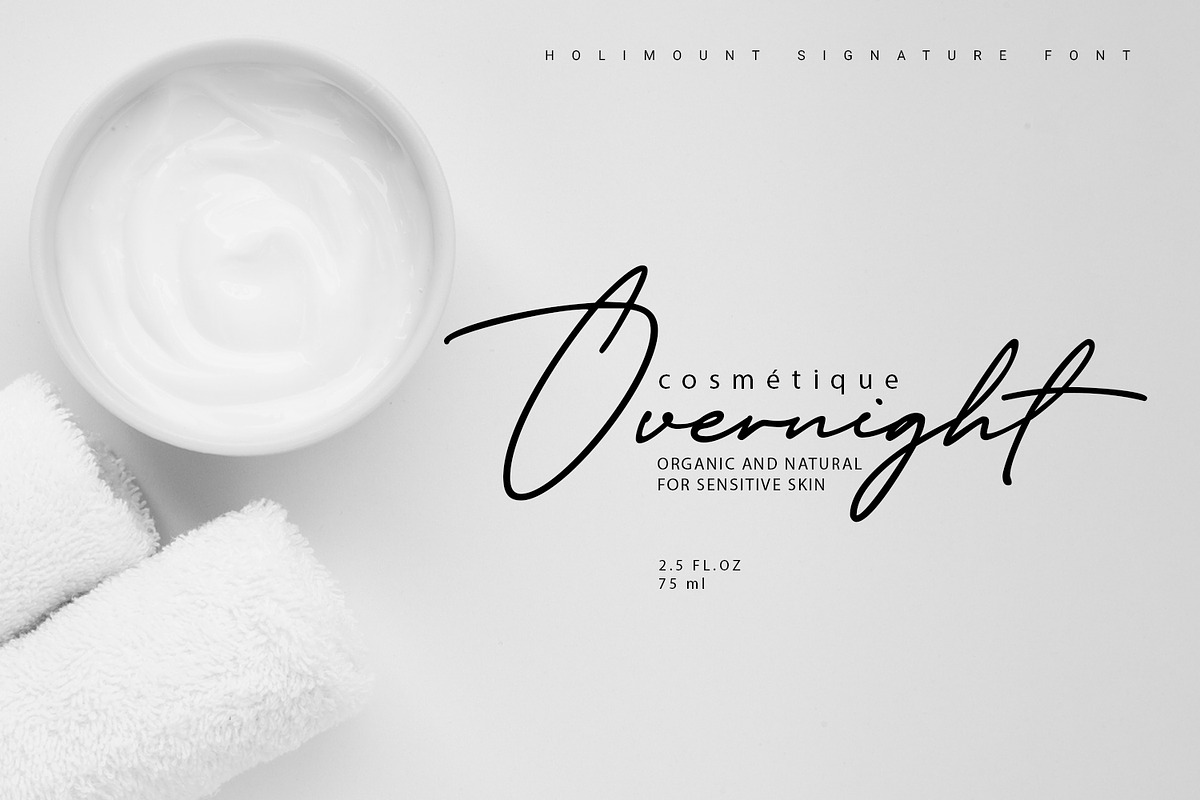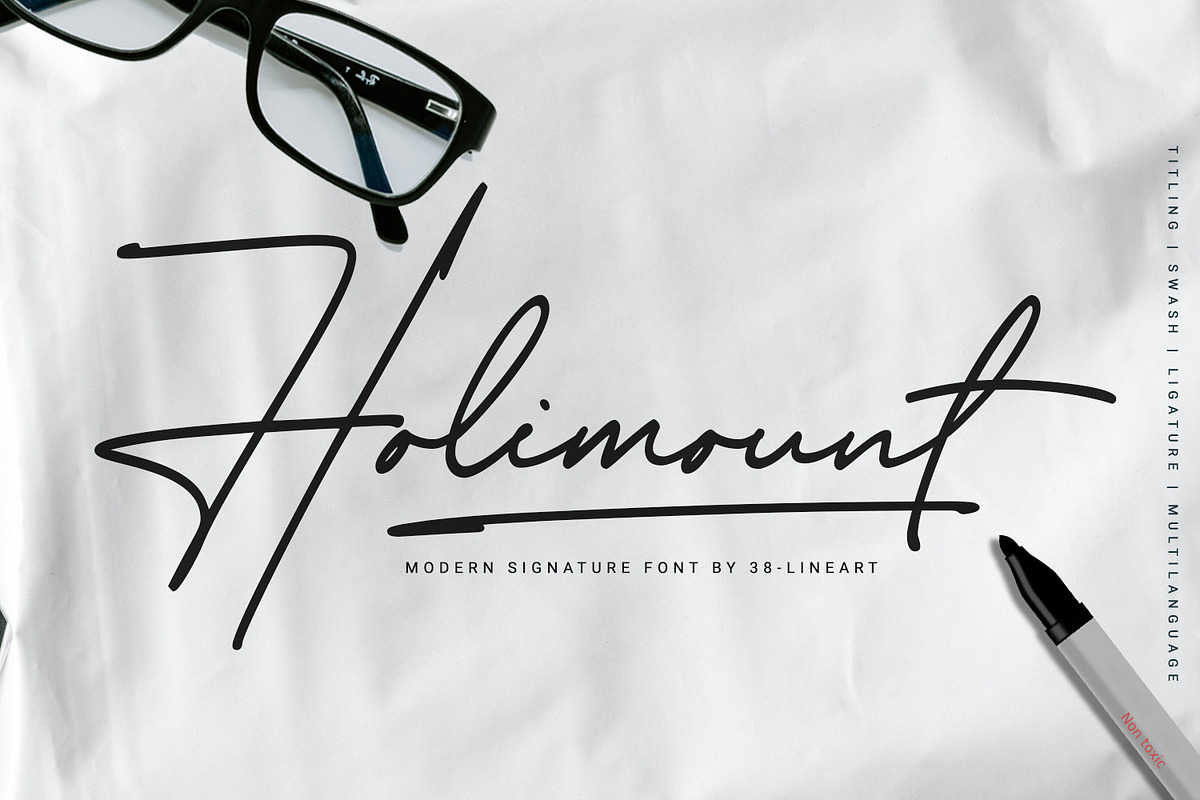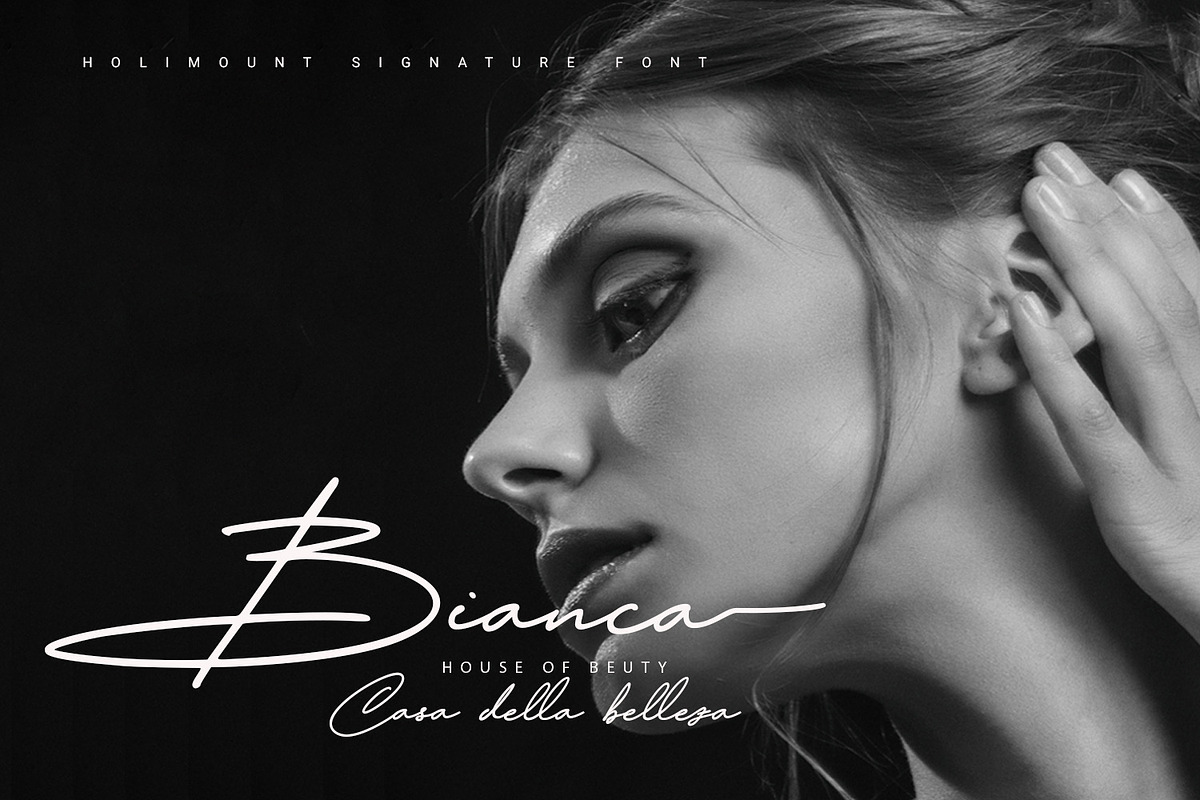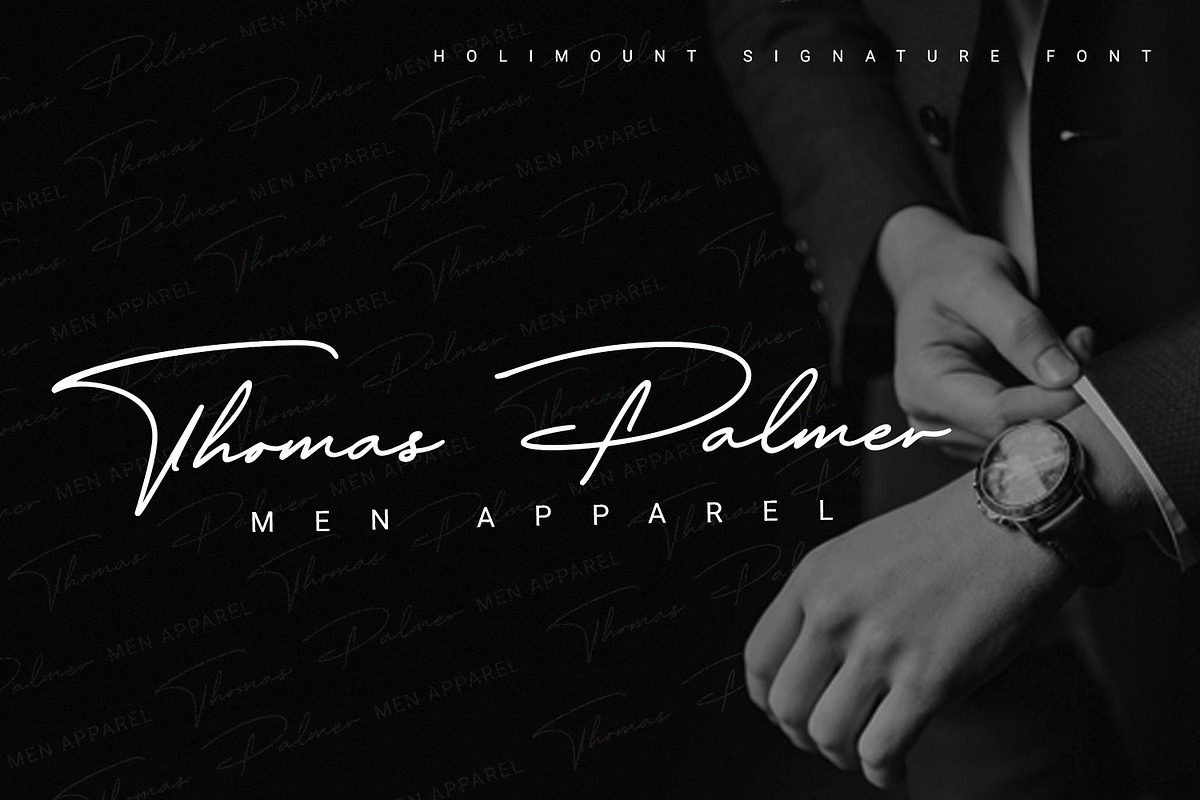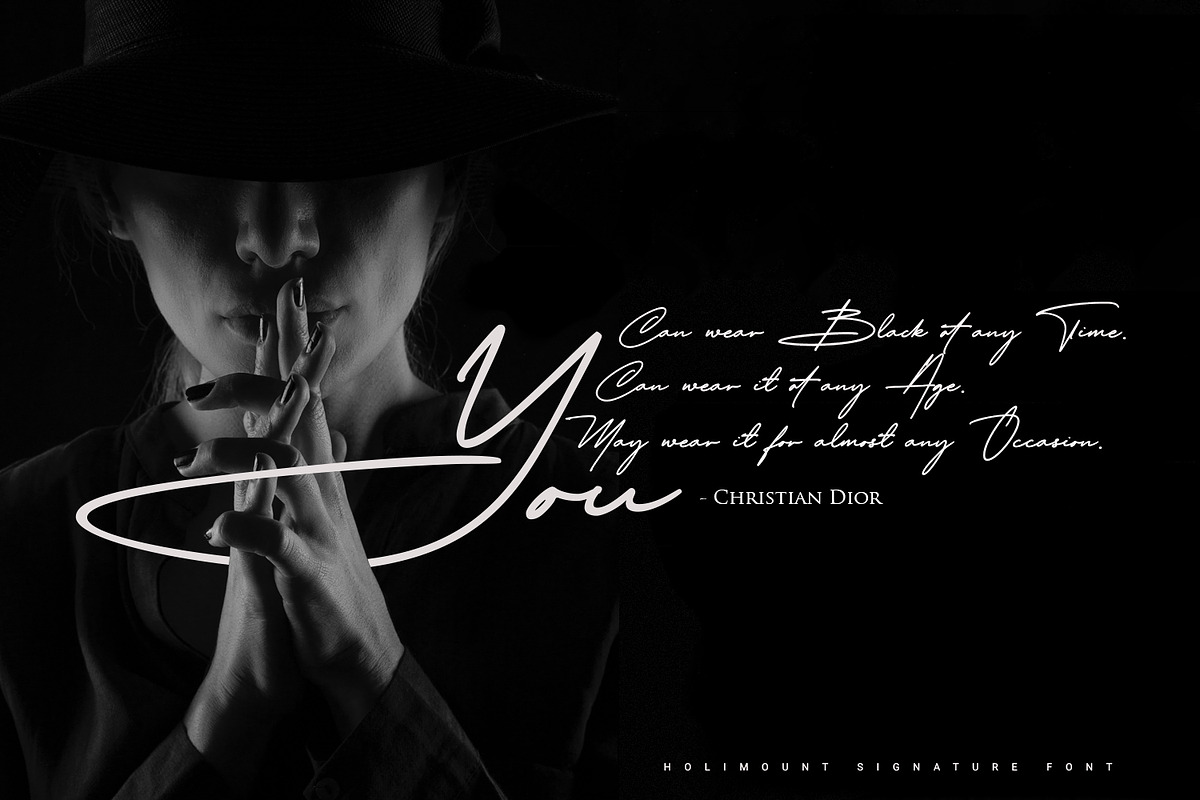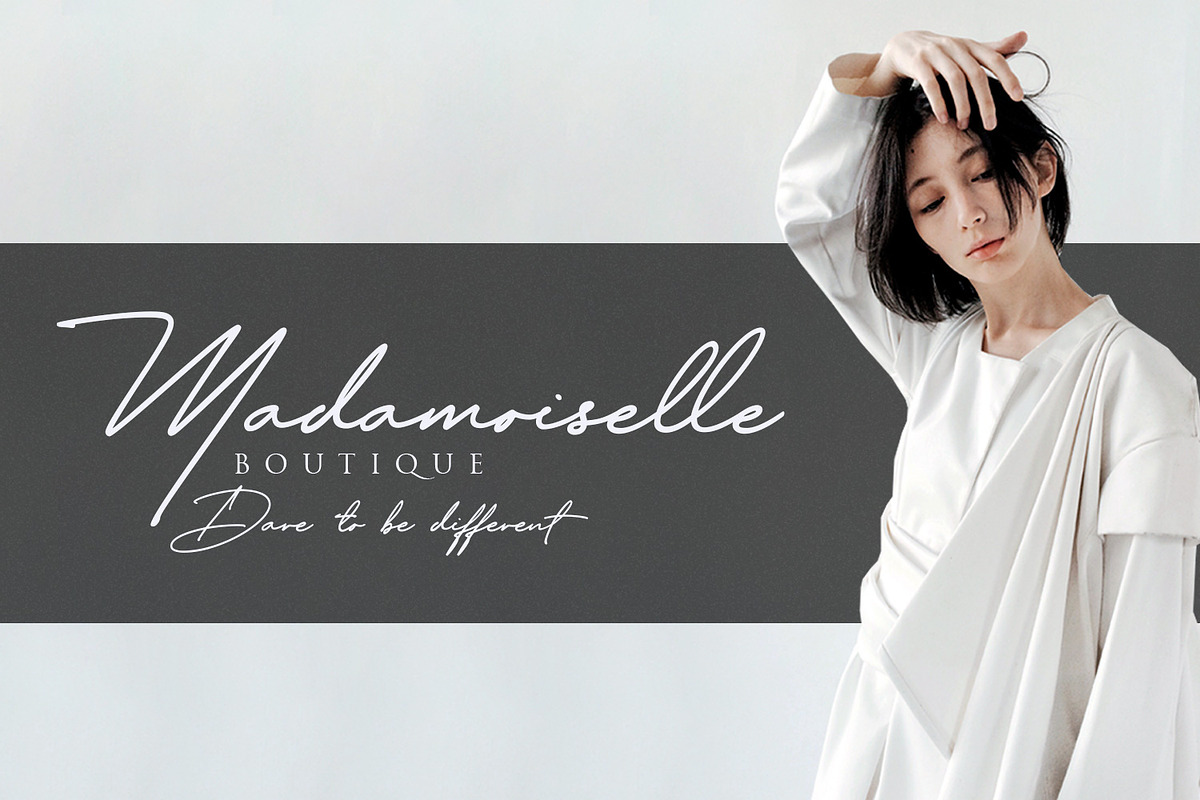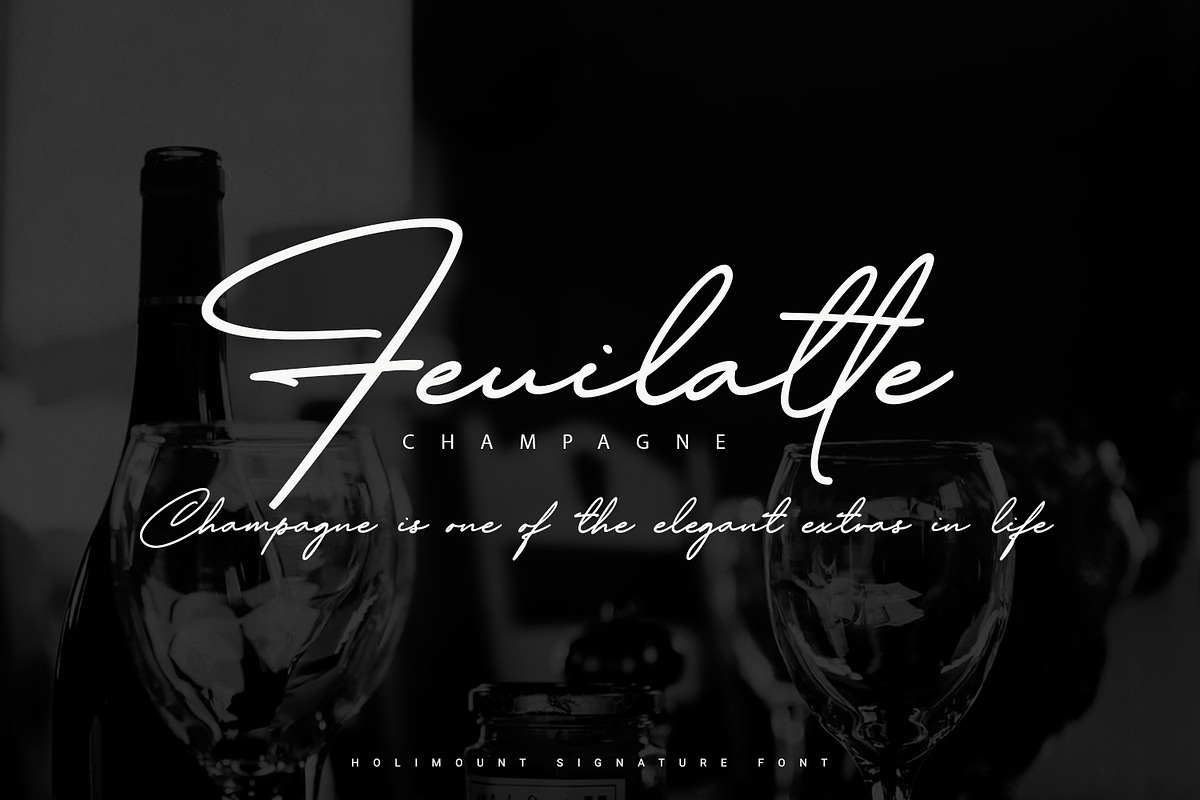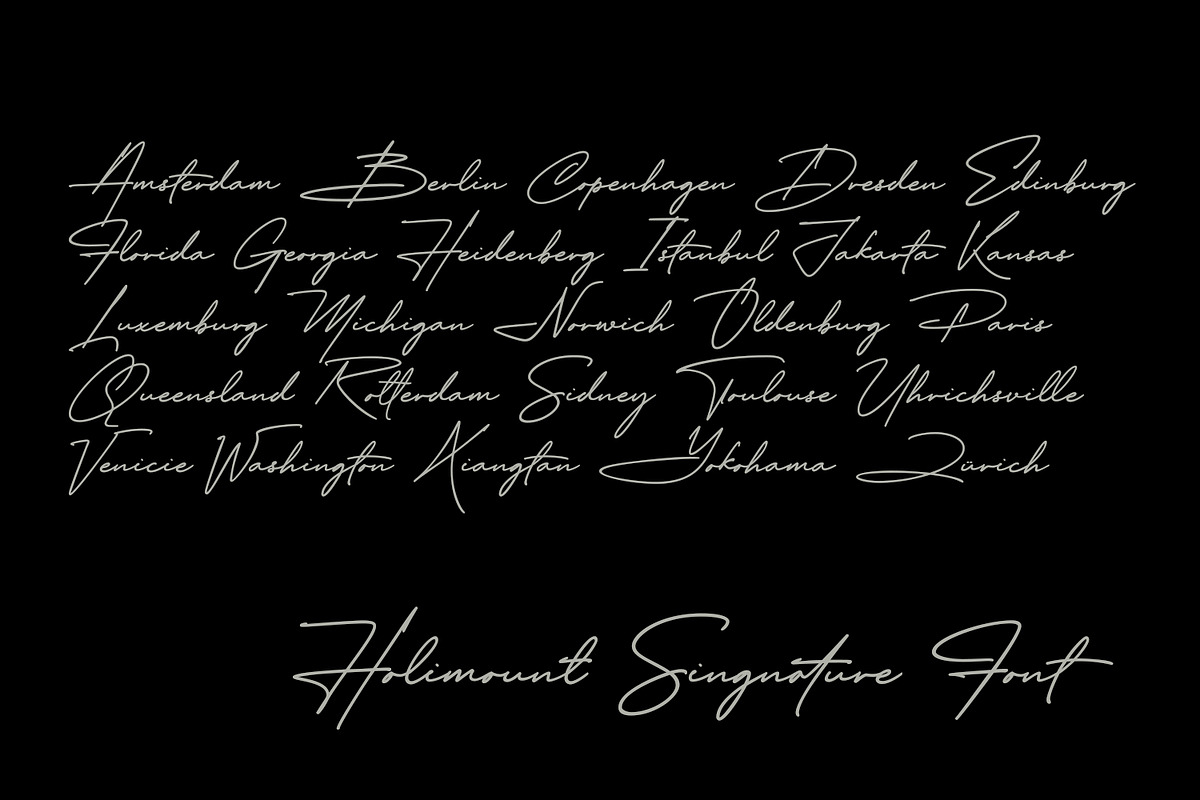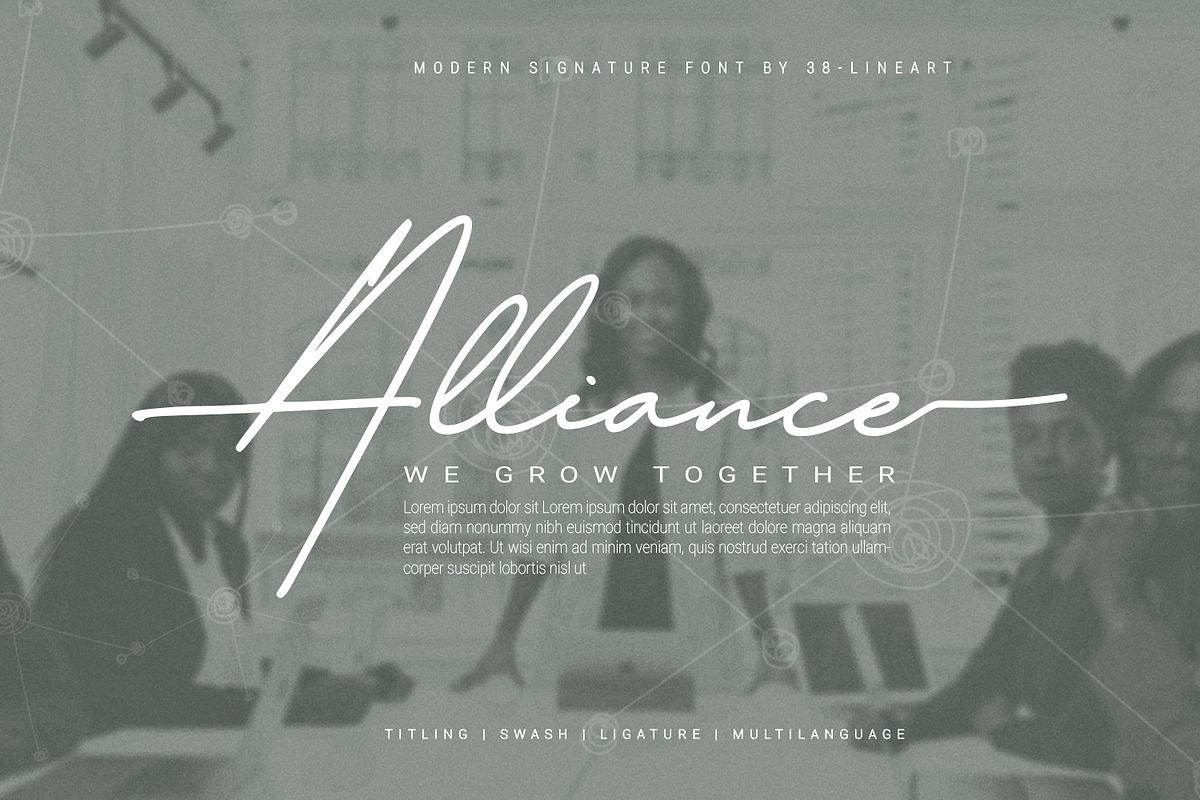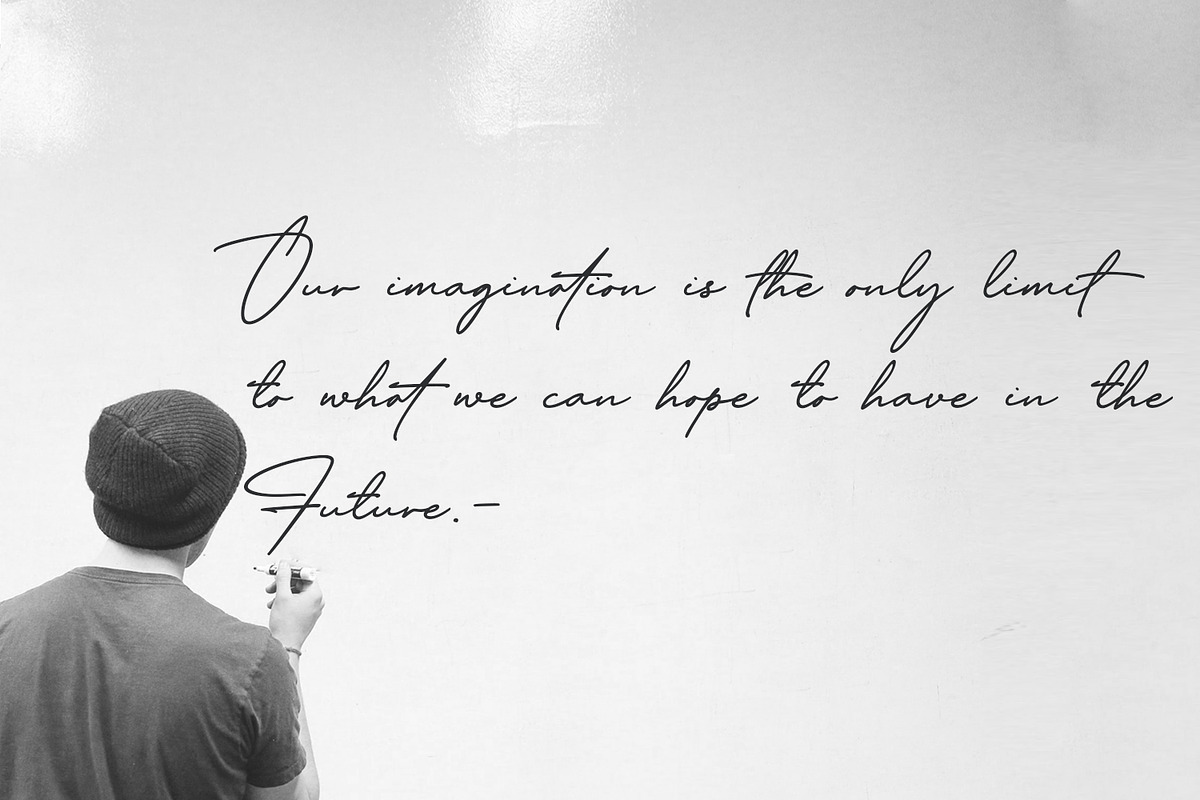
Holimount - Modern Signature
We did simple research on the signature font and we found several important notes that are often seen in a signature.
The first thing is that initial letters are usually uppercase letters that have full power as an attraction, shape and size are very prominent, usually very large so that the limit of ascender and descender is very long.
The second thing is the lowercase letters flowing to the same rhythm, so each lowercase letter must be connected perfectly.
The third thing, some signatures begin and end with a long, firm horizontal line, so we complement this font with alternate titling and swash.
The fourth thing is “conical”, the appearance of the whole text usually starts large at the beginning to shrink at the end of the word, sometimes there is an emphasis at the end.
The fifth thing is that some letter combinations differ from the basic references, so ligature is something that is mandatory in the signature font.
The sixth thing, some signatures are sprinkled with lines under the text, so this font is equipped with 26 swashes.
It is the combination of these six concepts that we frame in Holimount. A masculine signature font, elegant and full of mystery that invites people to want to know more about the brand that you created with this font.